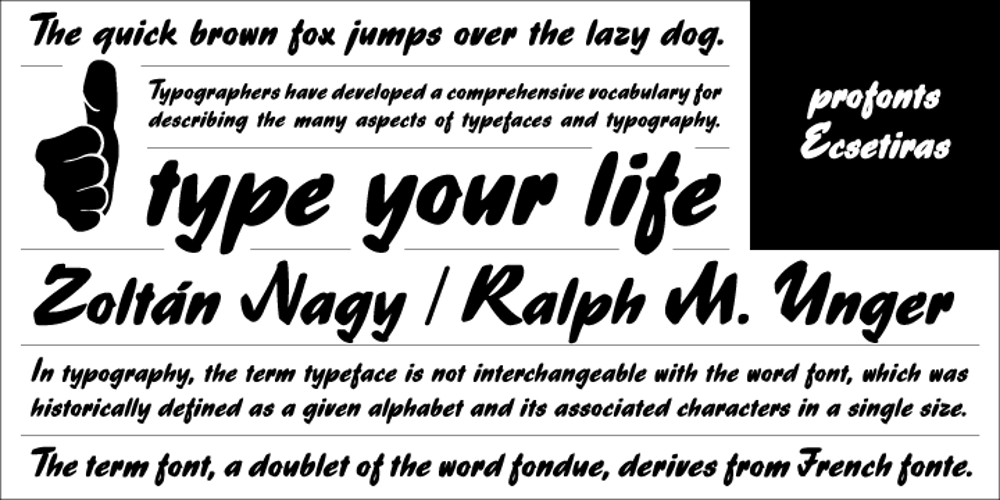
Ecsetiras
Ecsetiras font
Ecsetiras Font Family was designed by Ralph M. Unger, Zoltán Nagy and published by profonts. Ecsetiras contains 1 styles and family package options. Ecsetiras was originally designed by Zolt�n Nagy for Els� Magyr Bet��nt�de, a Hungarian type foundry in Budapest. Ralph M. Unger revived, completed and digitally remastered this lively brush written handwriting script in 2005 for the profonts library.